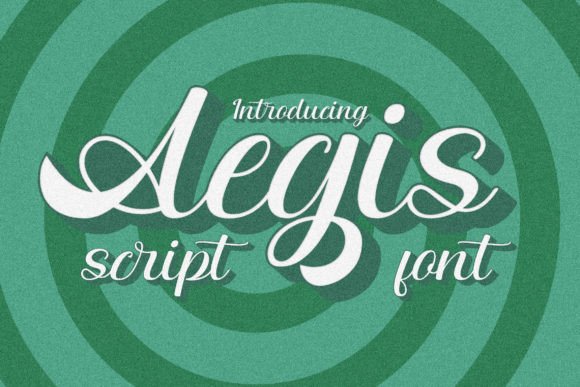
**Aegis Font:** An Enigmatic Handwritten Font Rooted in Vintage Aesthetics
In the realm of typography, where letters dance to form words and ideas take shape, the Aegis Font emerges as a true masterpiece. Crafted with meticulous attention to detail, its every stroke exudes a nostalgic charm that harks back to a bygone era. This modern handwritten font, a brainchild of Juncreative, carries an air of elegance and sophistication that will elevate your creative projects to new heights.
Discover the myriad possibilities of Aegis Font, a script font that seamlessly blends the allure of the past with the vitality of the present. Whether you're a seasoned designer or a budding artist, let the Aegis Font ignite your imagination and transport your designs to captivating new dimensions.
**Unleash Your Creativity with the Alluring Aegis Font**
With its captivating vintage style, Aegis Font adds a touch of timeless allure to your branding, logos, posters, and various design endeavors. Its clean lines and flowing curves evoke a sense of nostalgia, creating a profound emotional connection with your audience. Imagine your designs adorned with the grace and poise of Aegis Font, leaving an unforgettable impact that resonates with the hearts of your viewers.
**A Font of Infinite Versatility**
The Aegis Font is not limited to a single genre or style; its versatility knows no bounds. With its inherent charm and adaptability, it effortlessly complements a wide range of creative projects, from whimsical invitations to sophisticated business cards. Its versatility extends to digital platforms, where it seamlessly enhances website designs, social media posts, and e-commerce storefronts. Aegis Font possesses the unique ability to transform your creative vision into a tangible reality, captivating your audience with its timeless elegance.
**Embrace the Timeless Allure of Aegis Font Today**